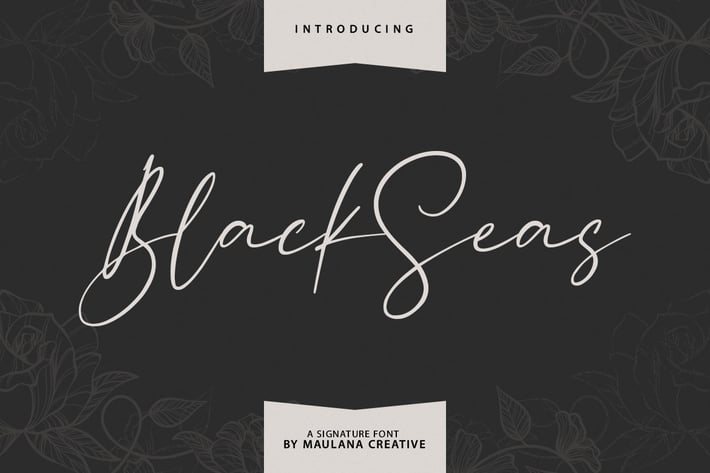
Blackseas Signature Font
Give your designs an authentic handcrafted feel. "Blackseas" is perfectly suited to signature, stationery, logo, typography quotes, magazine or book cover, website header, clothing, branding, packaging design and more.